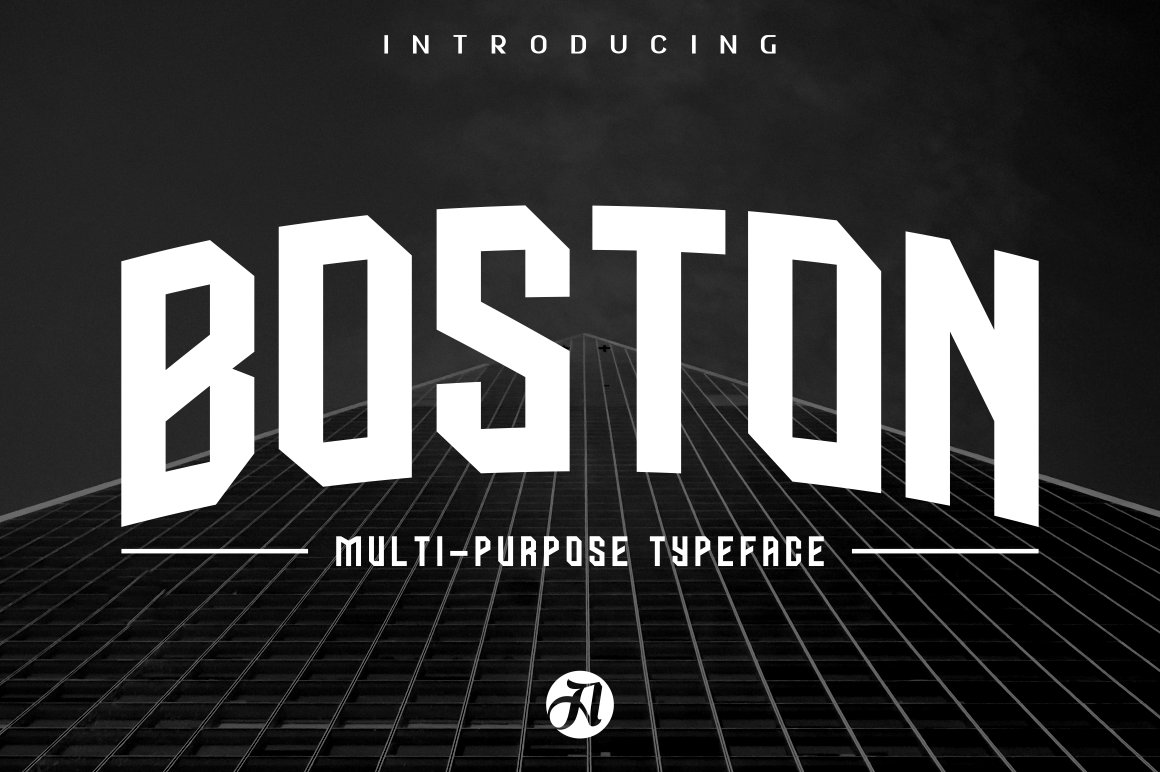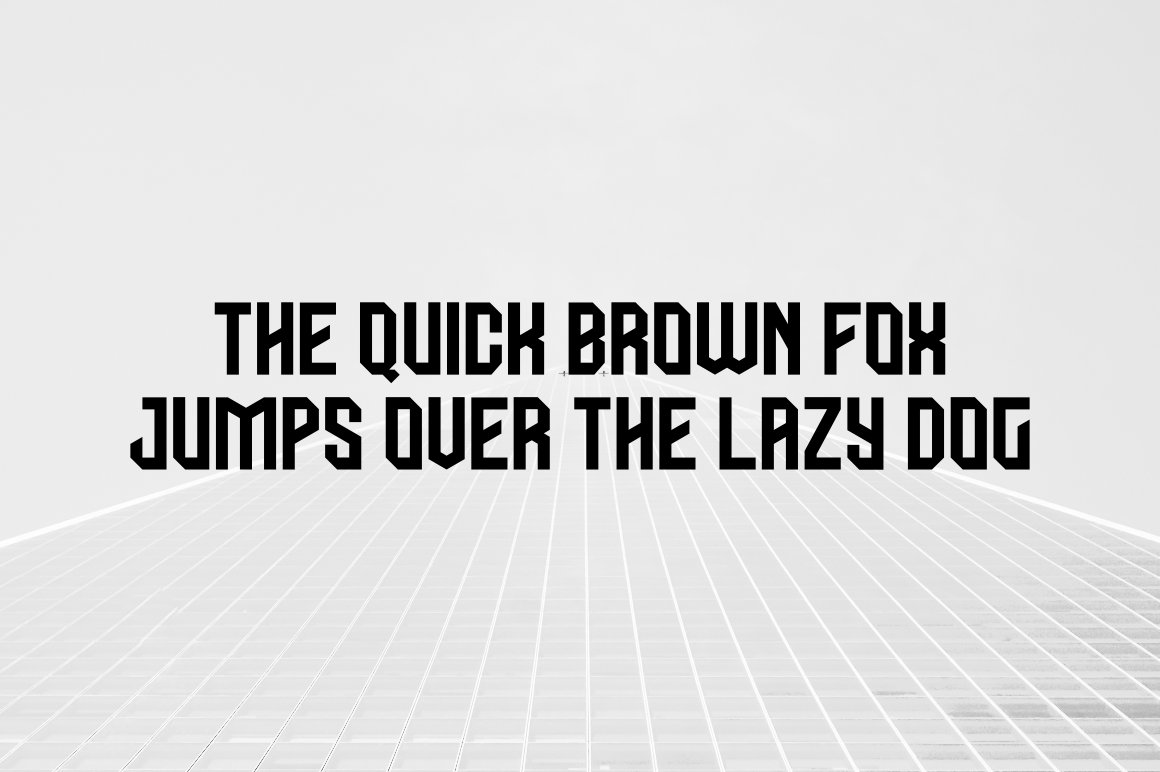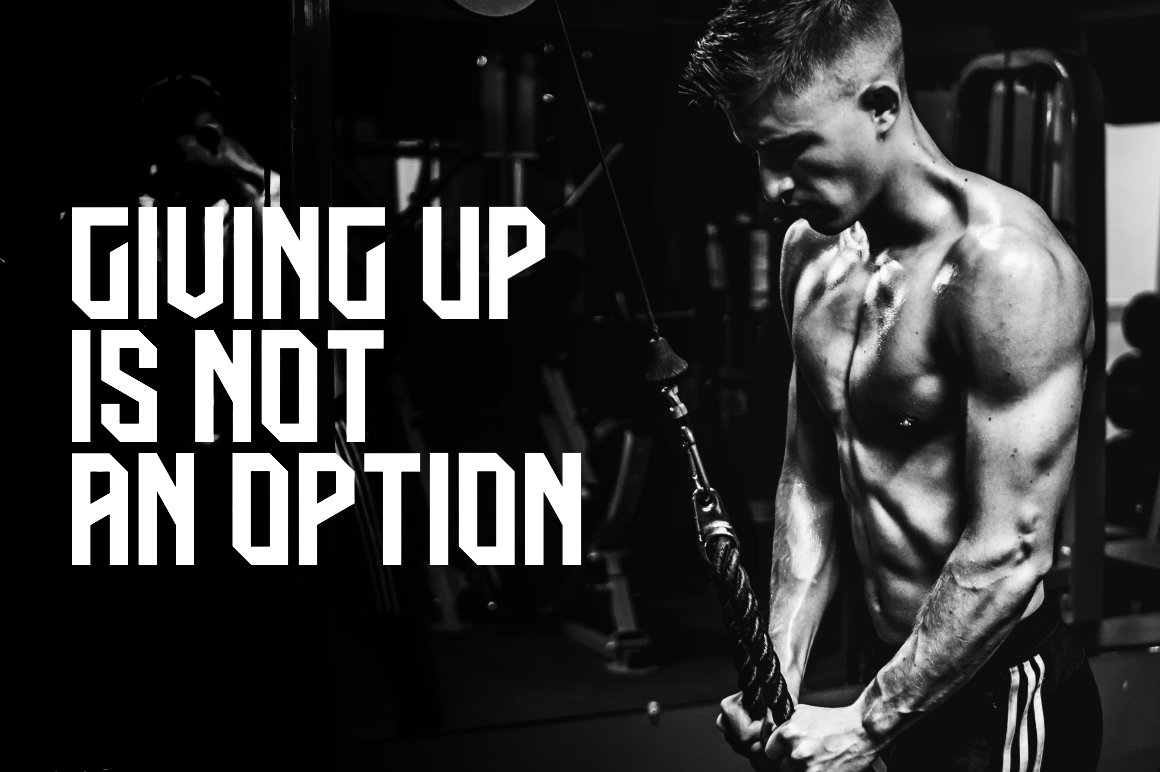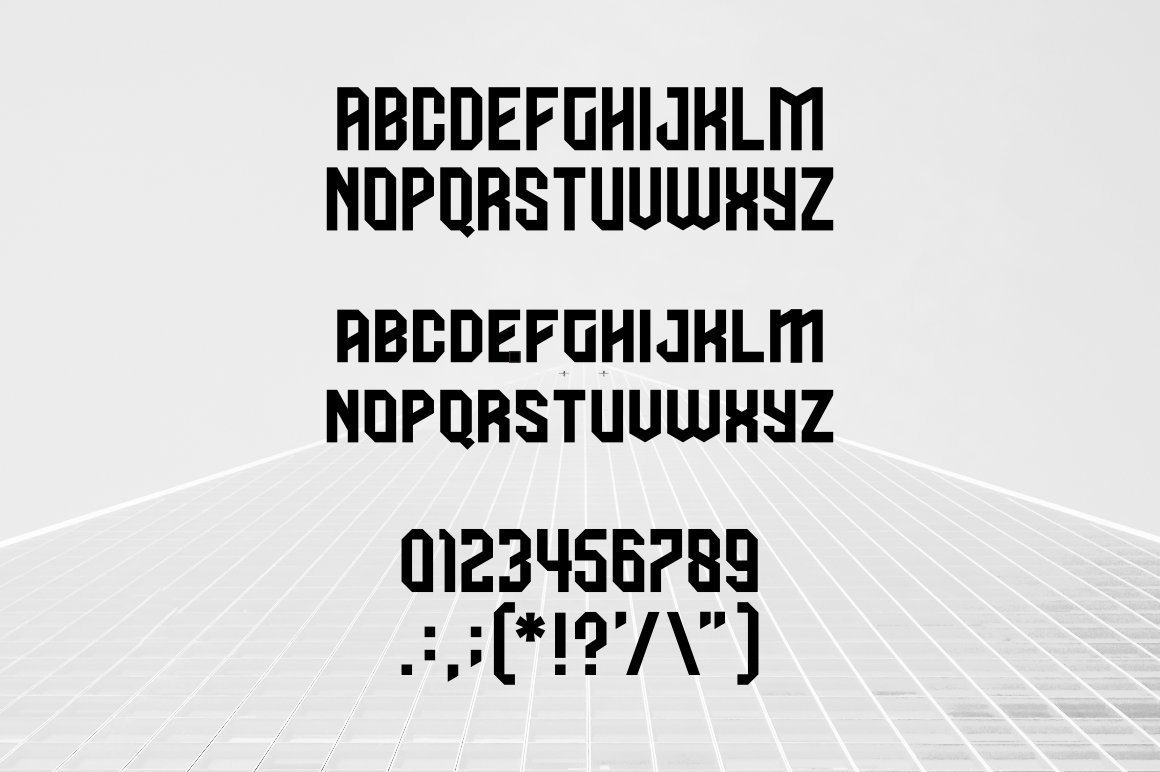
BOSTON FONT is a modern geometric typeface. It can be used as body text or as a display font. With inspiration from sport, industrial and urban poster , Boston suitable for font logo, poster designs, magazine header, powerpoint, branding, brochure, flyer, card, etc